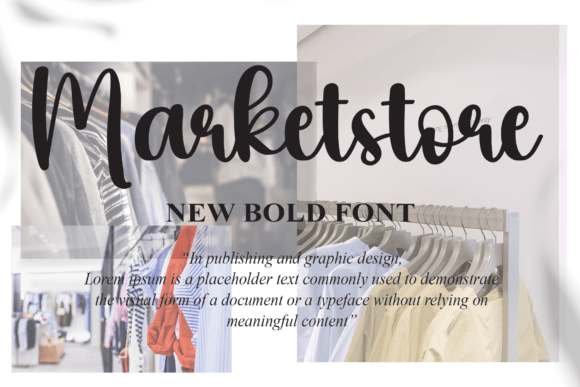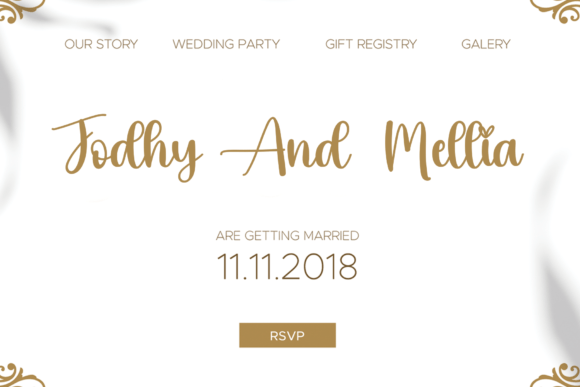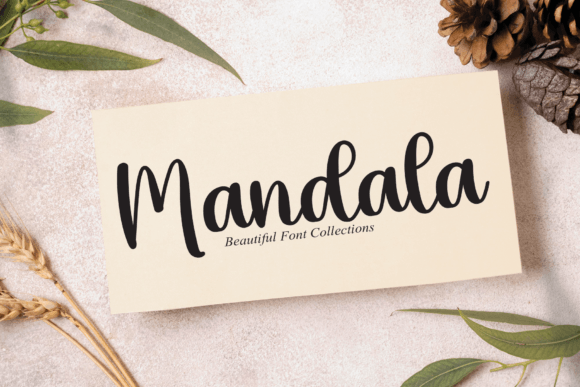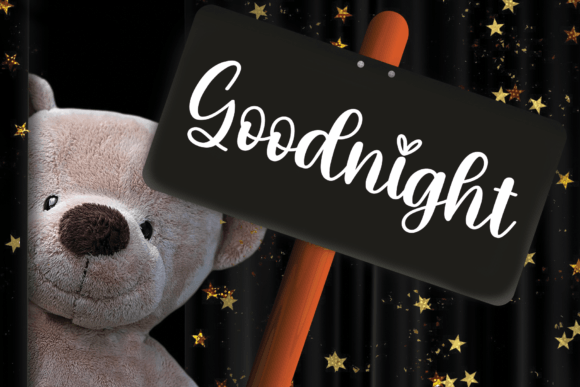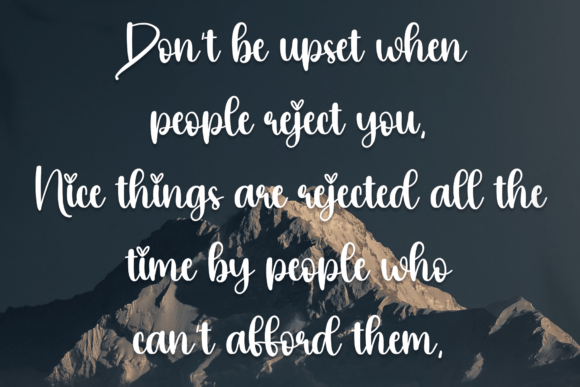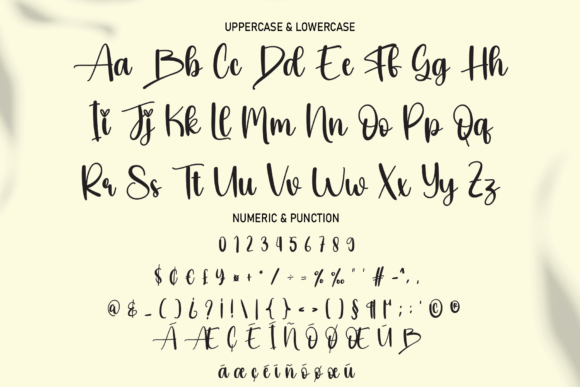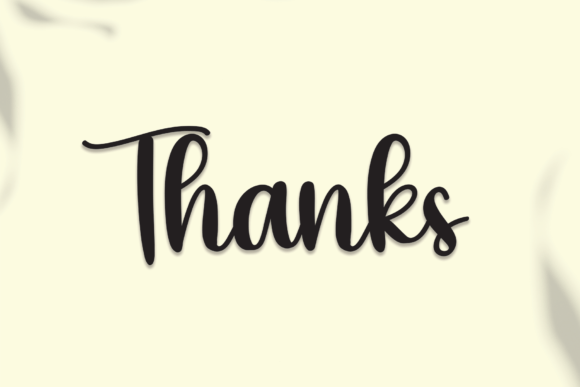
Bekind Font
About Bekind Font
Bekind is a modern and simple handwritten font specially crafted to make your designs extraordinary. It is perfect for wall displays, wedding invitations, social media posts, logos, advertisements, product packaging, product designs, labels, photography, watermarks, invitations, stationery, and any project that requires a handwritten touch.